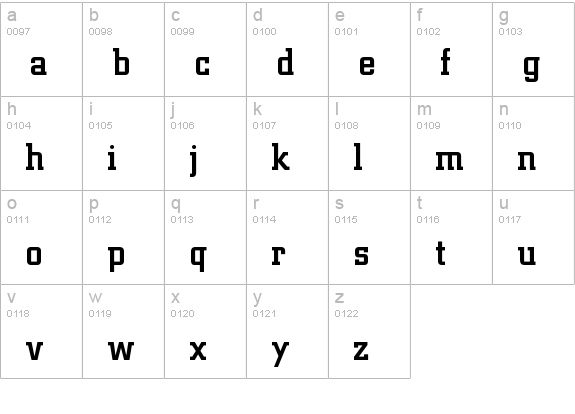
Centrum-Medium-Regular Font Details
Centrum-Medium-Regular is a balanced, medium-weight variant in the Centrum typeface family \xE2\x80\x94 well suited to sub-headlines, navigation, and balanced editorial work.
Centrum-Medium-Regular is a versatile and modern font that combines clean lines with a touch of sophistication. This font is perfect for both digital and print projects, offering excellent readability and a timeless aesthetic. The medium weight strikes the perfect balance between boldness and elegance, making it suitable for a wide range of design applications. The best part is, Centrum-Medium-Regular is available for free download at FontsMarket.com. This means you can easily access this high-quality font and enhance your projects without any cost. Whether you're working on branding, advertising, web design, or any other creative endeavor, Centrum-Medium-Regular is a fantastic choice that will elevate your work to the next level. Download it now and see the difference it can make in your designs!